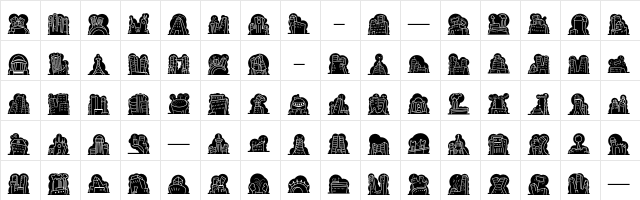
MiniPics NakedCityNight Regular
Design Context for MiniPics NakedCityNight Typeface
MiniPics NakedCityNight is a composed and adaptable typeface that performs quietly and consistently across a wide range of design contexts.